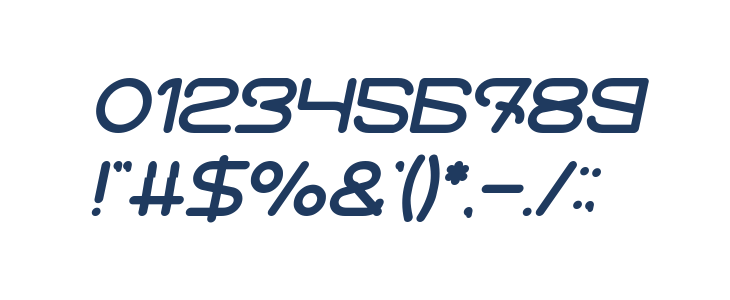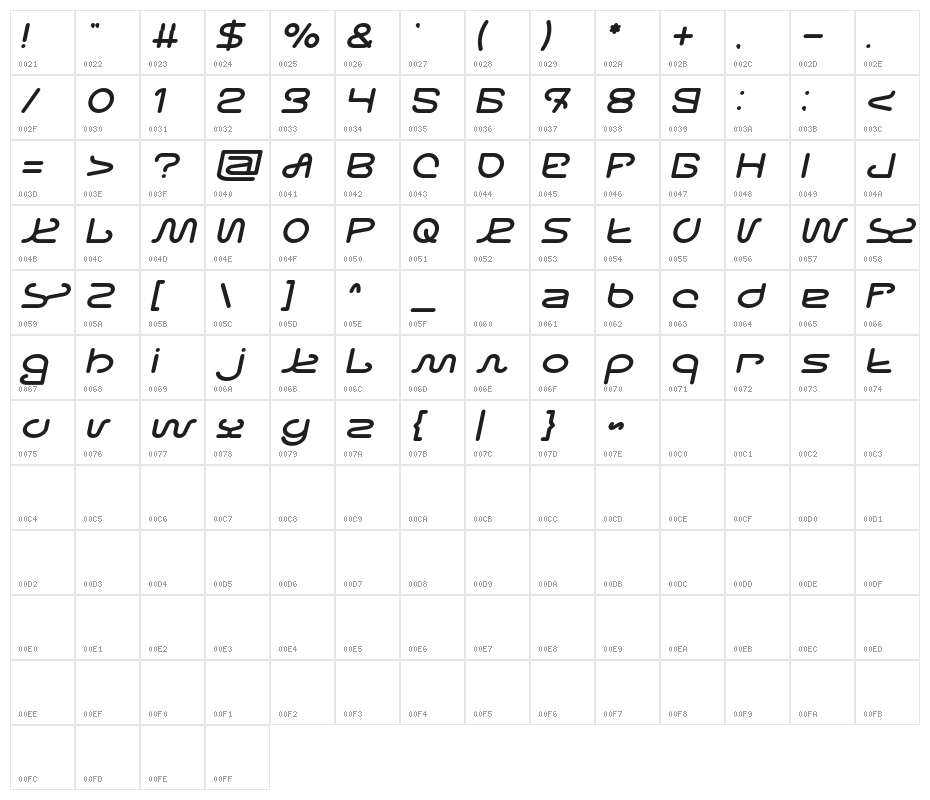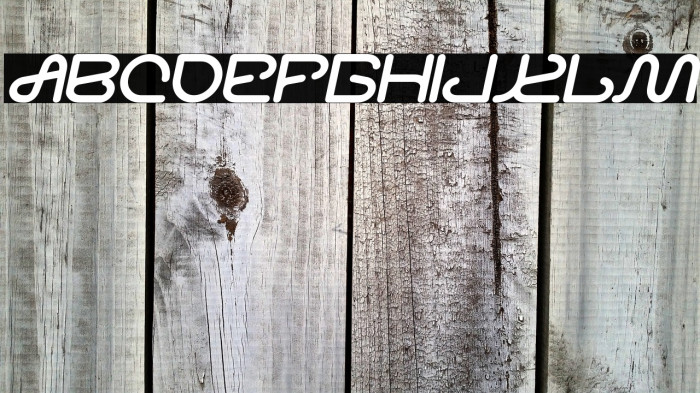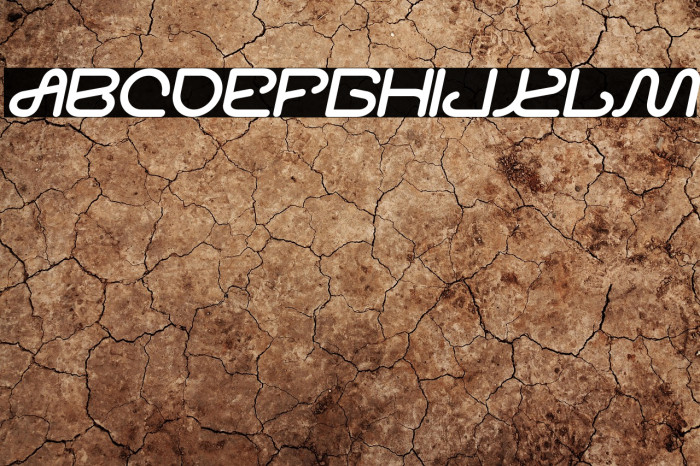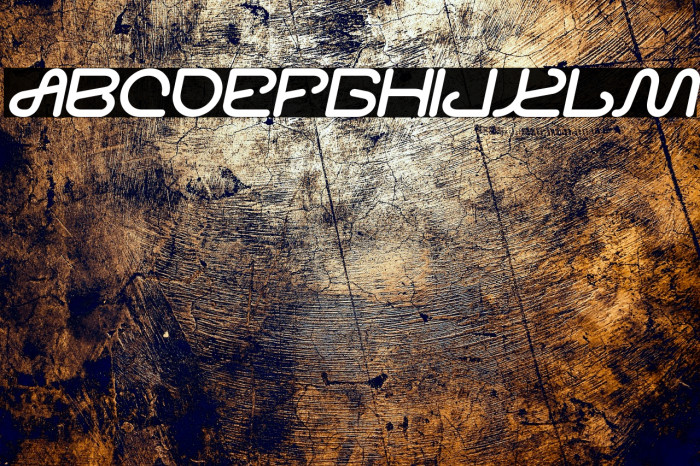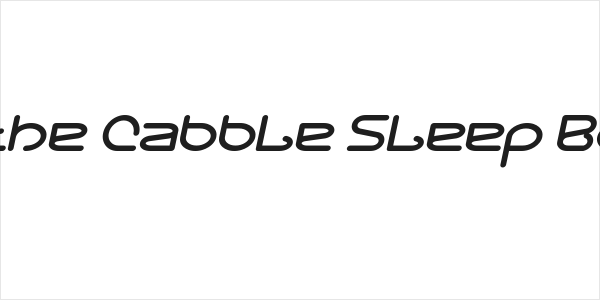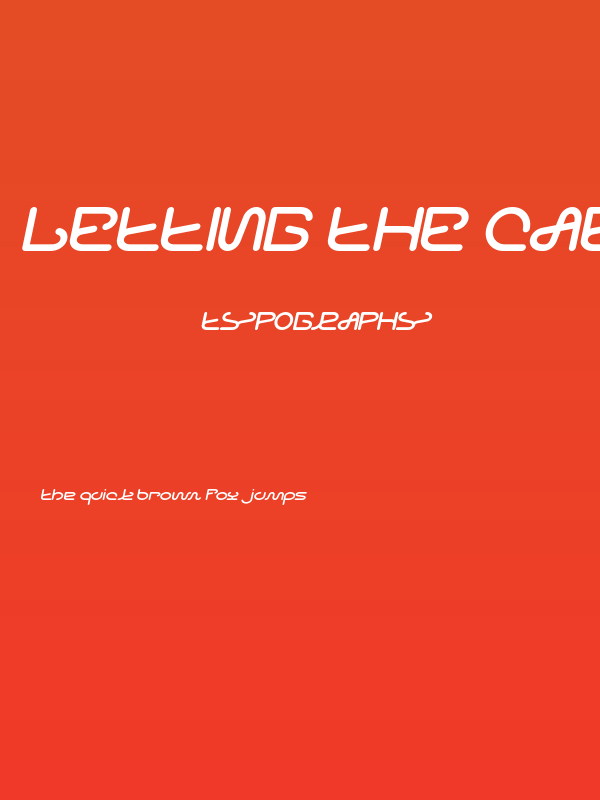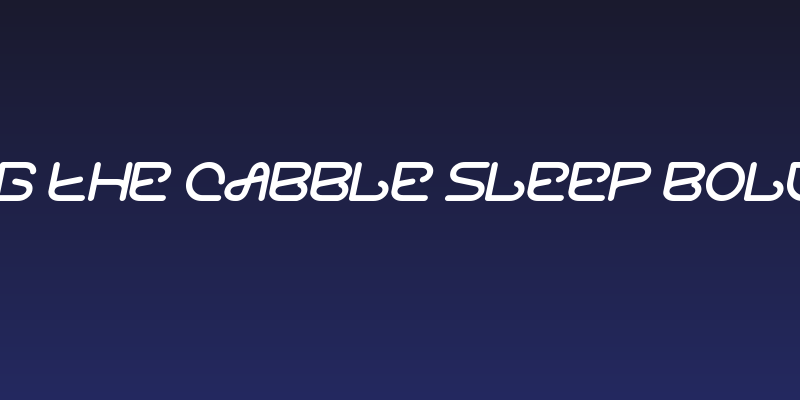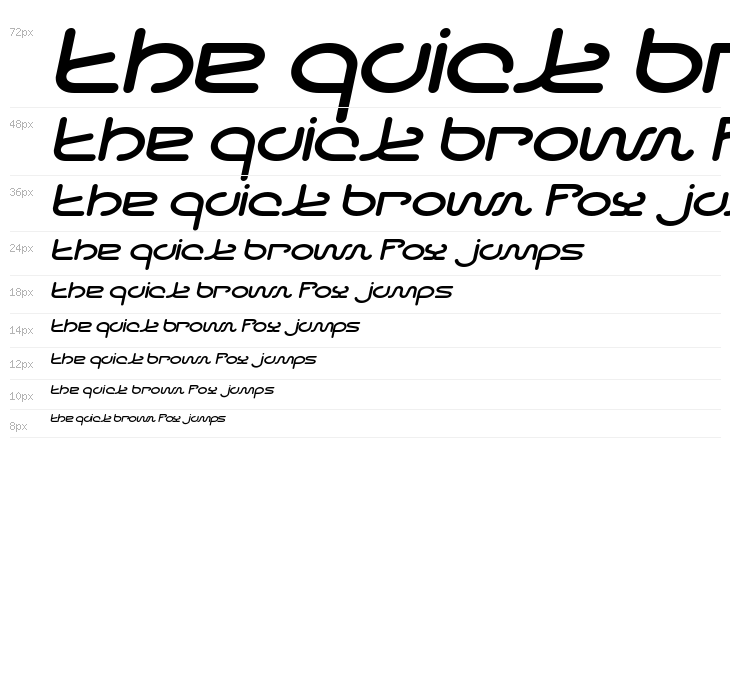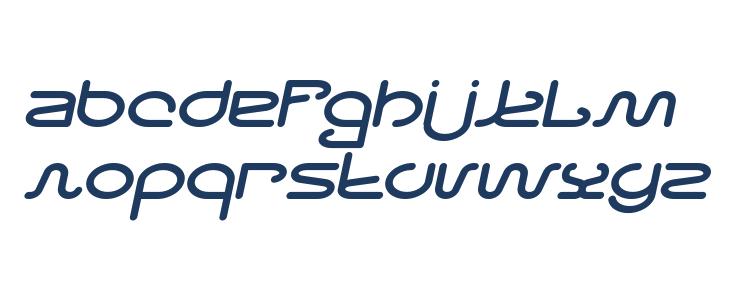
Letting The Cabble Sleep Bold Italic Font
Letting The Cabble Sleep Bold Italic Description
This font features a unique, flowing design with a modern twist. The characters are interconnected with smooth, rounded edges, giving it a continuous and cohesive appearance. The uppercase and lowercase letters maintain a consistent style, with a slight slant that adds a dynamic feel. Numbers and special characters follow the same design principles, ensuring uniformity across all elements. The bold weight enhances its presence, making it suitable for attention-grabbing applications. The italic style further emphasizes its fluidity and movement, creating an elegant yet contemporary look.
| Proposed Projects | Ideal for branding, logos, and headlines where a modern and dynamic appearance is desired. |